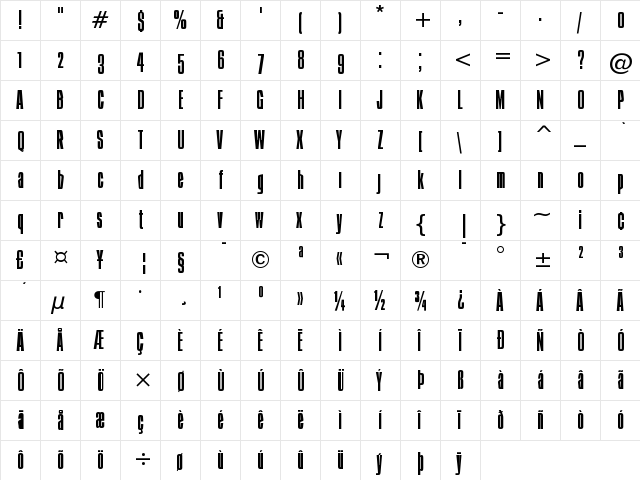
Ibiza Regular
Design Context for Ibiza Typeface
Ibiza offers clean, dependable letterforms without strong stylistic allegiance, making it a practical choice for designers who need flexibility.